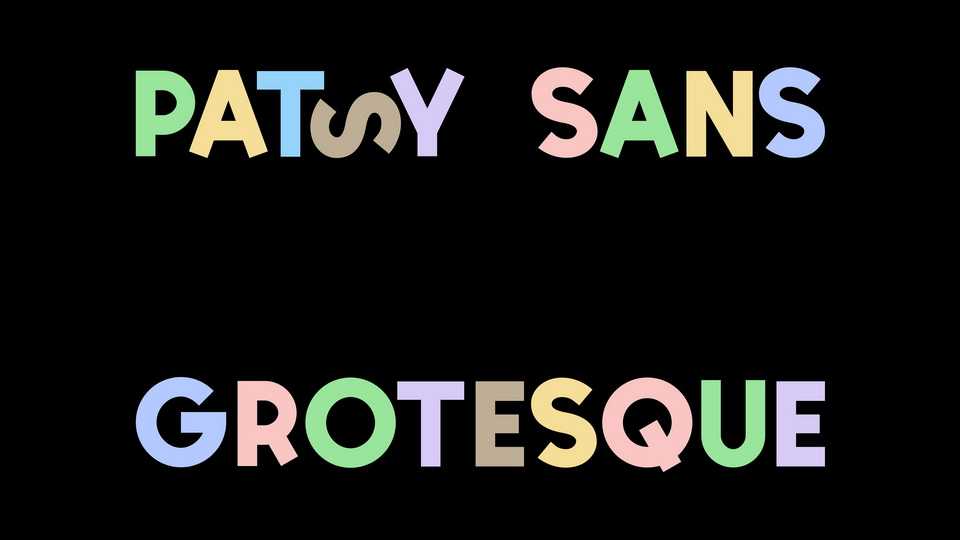
Download Patsy Sans font, a grotesque typeface unaware of its imperfections. It is unrefined and unsophisticated, yet bold and brazen. Patsy is a fun idea born out of boredom.
Designer: Vedran Vaskovic